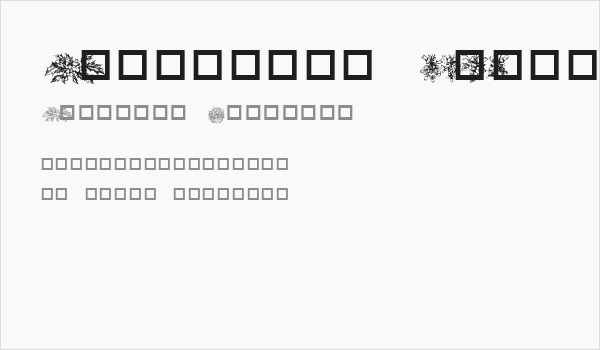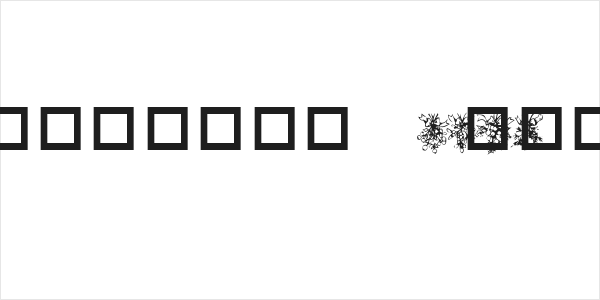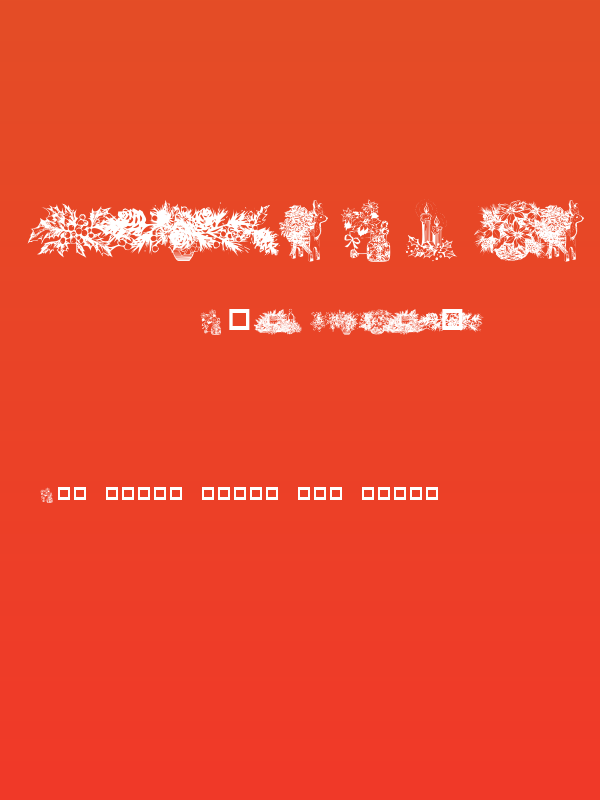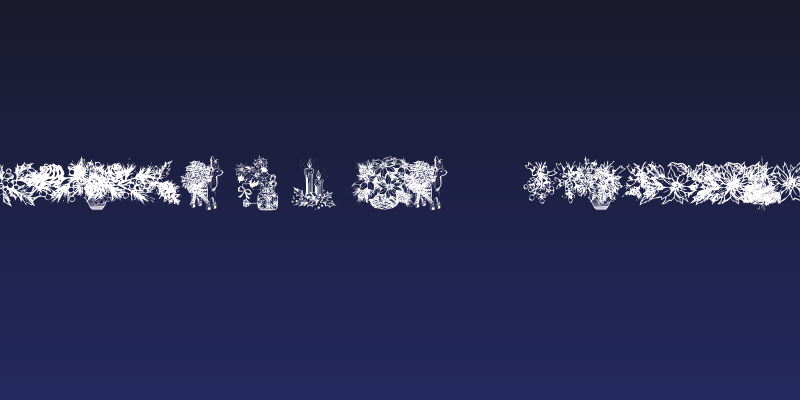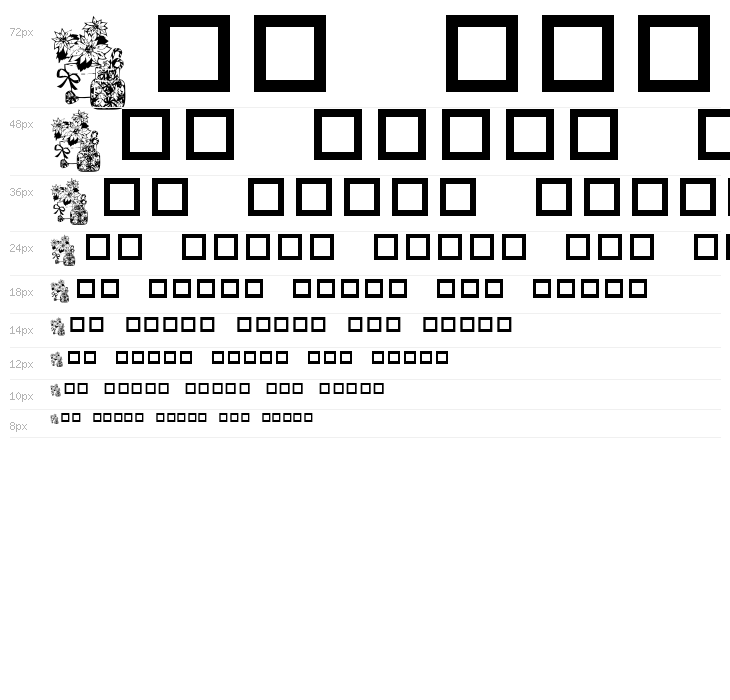
Christmas Greens Font
Christmas Greens Description
This set of images features intricate, decorative designs with a festive theme, incorporating elements like holly, ivy, and Christmas ornaments. The designs are highly detailed, showcasing a variety of holiday motifs that are perfect for adding a seasonal touch to creative projects. The images are not a traditional font but rather a collection of themed illustrations that can be used for decorative purposes.
| Use Case | Decorative elements for holiday-themed projects. |
| Proposed Projects | Ideal for holiday cards, festive invitations, seasonal decorations, and creative design projects that require a touch of Christmas spirit. |